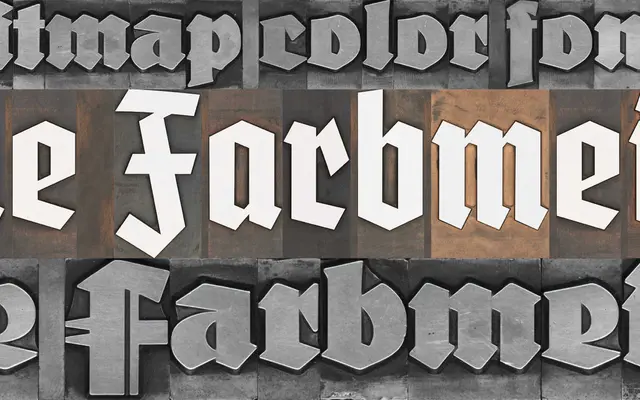
FDI Farbmeister
A trio of SVG bitmap colour fonts by Ralf Herrmann, recreating the ink-on-paper texture of blackletter letterpress printing using the Deutschmeister typeface family as source material.
Built on the Deutschmeister family, first released in 1927, the set includes three styles: Alte Farbmeister drawn from the original design, and two versions of Neue Farbmeister derived from the woodtype bold condensed cut. The colour fonts render as genuine bitmap letterpress impressions, with blue or white ink variants that can be retinted in Photoshop or any app supporting SVG and SBIX colour font formats. A bonus set of 40 high-resolution letterpress workshop PNGs accompanies the complete purchase.
A colour font set built on blackletter letterpress sources, specifically the Deutschmeister family from 1927; the bitmap rendering and SVG/SBIX colour font format reinforce its display-only blackletter classification.